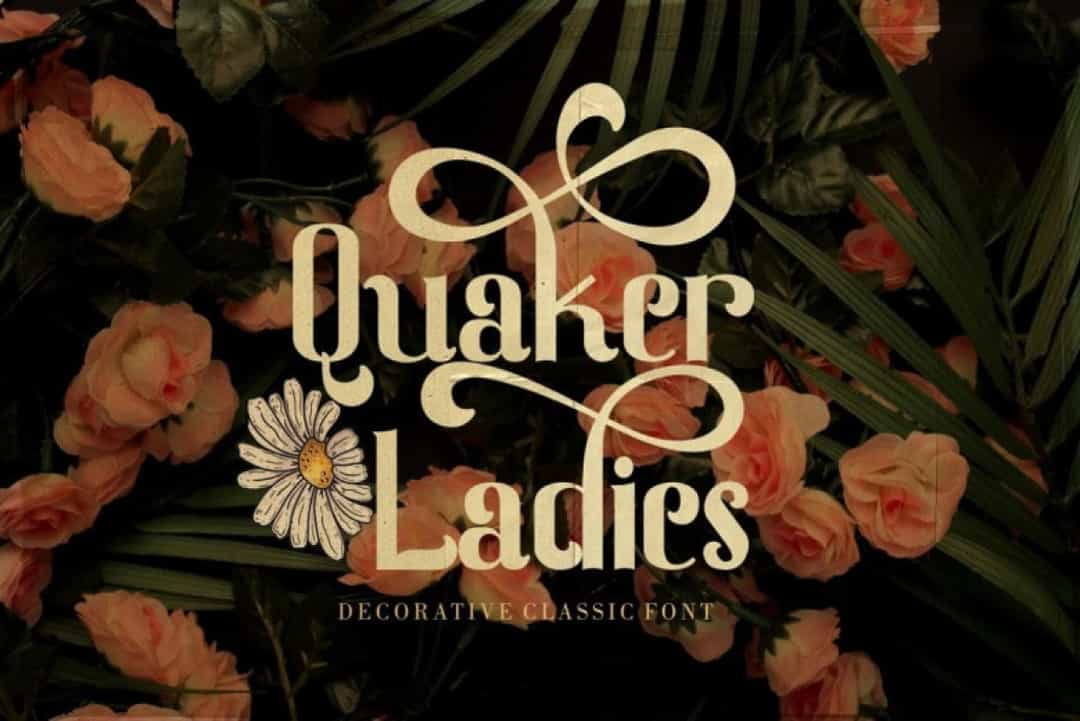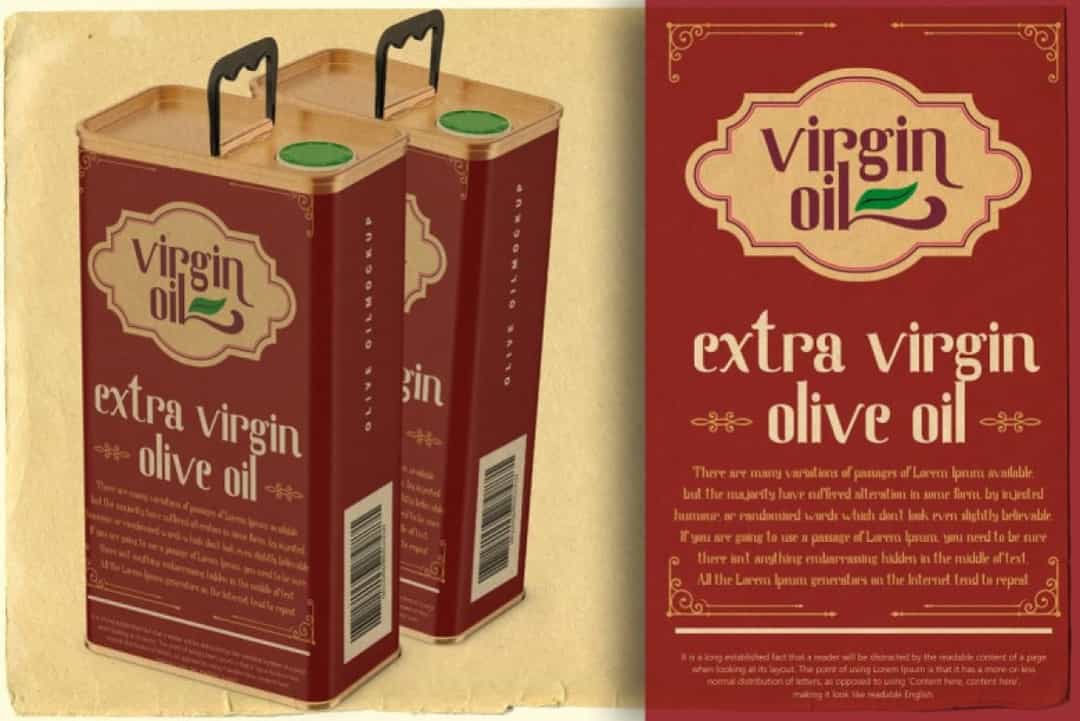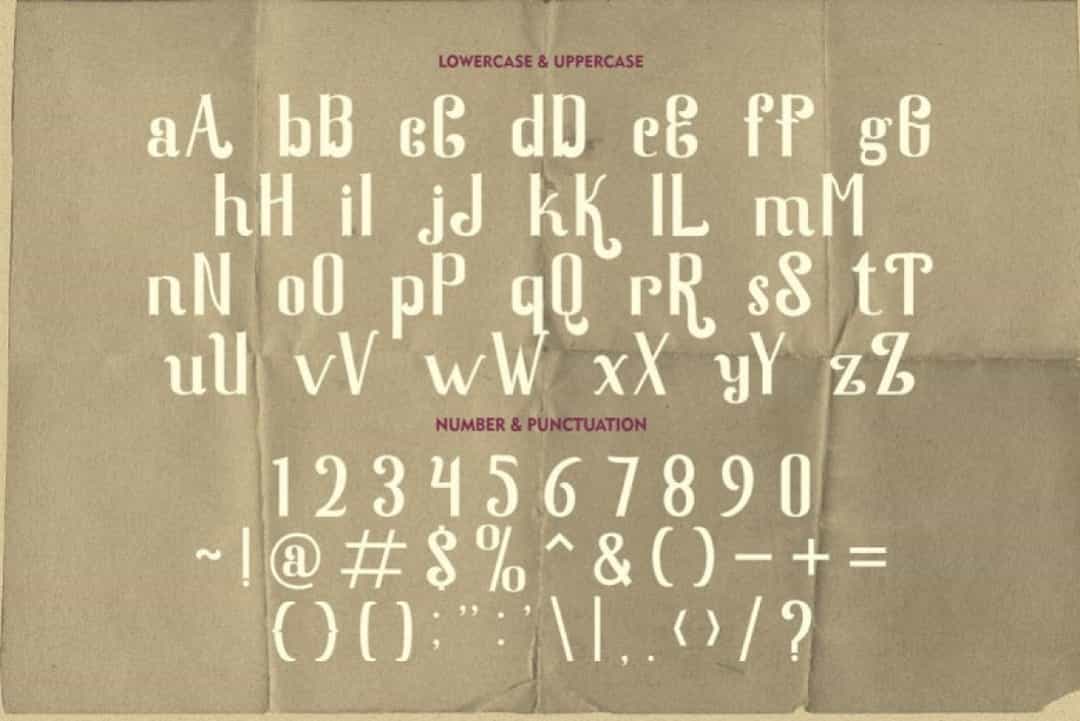
Quaker Ladies is an exquisite serif font. Its design is exquisite and precise; furthermore, its PUA encoded format enables easy access to every glyph and swash!